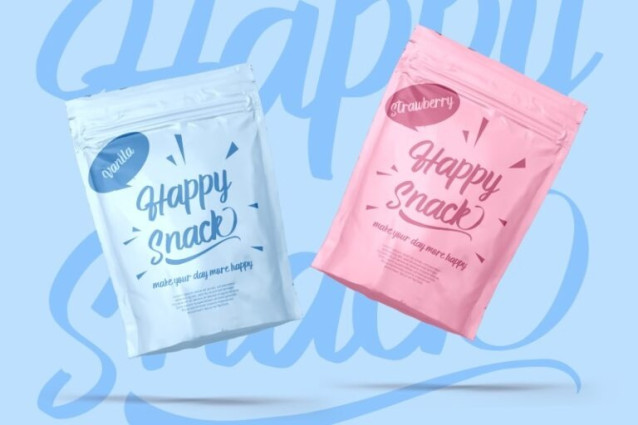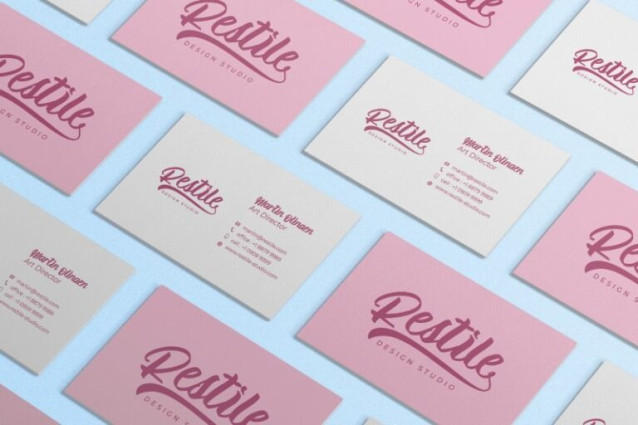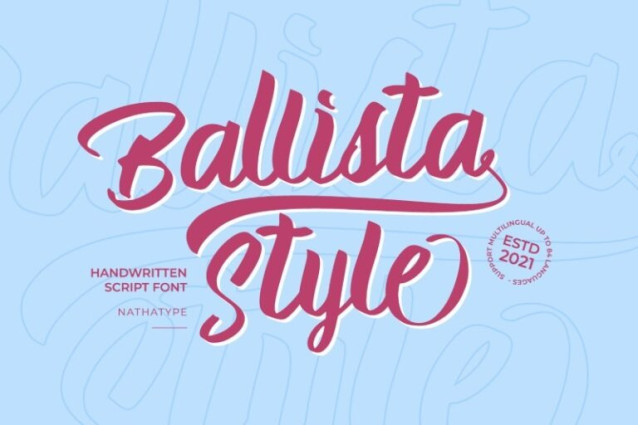
Ballista Style Font
Ballista Style Font is a delightful handwritten font that adds a playful touch to your designs. Each letter in Ballista Style is meticulously designed to capture the whimsical essence of handwritten text, with playful curves and dynamic strokes.
The swinging ends add a touch of movement and flair to the font, giving it a sense of energy and spontaneity. What sets BallistaStyle apart is its thick weight, which adds to its bold and confident appearance.